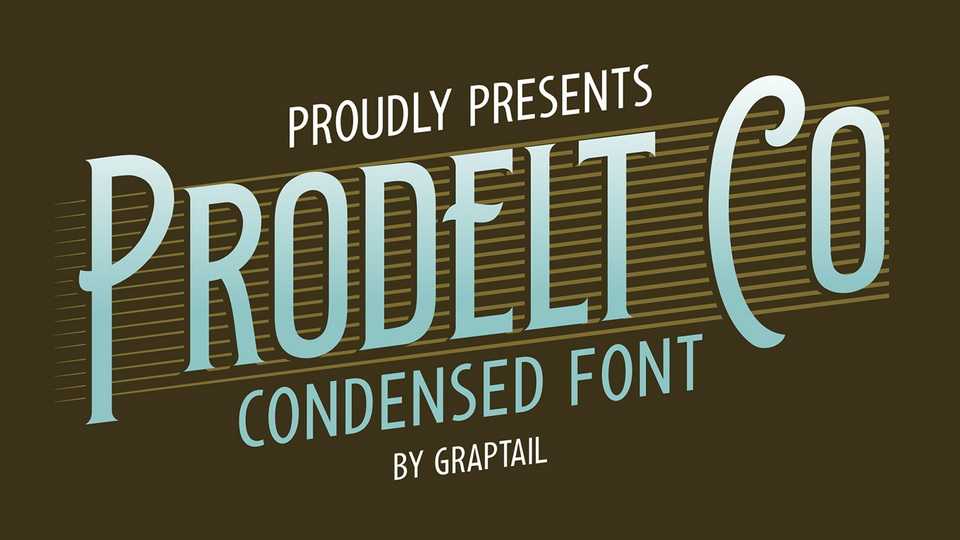
Download Prodelt Co font, a condensed display typeface with a vintage style that are inspired by the form of classic labels that are applied to products.
Designer: Graptail Type Studio